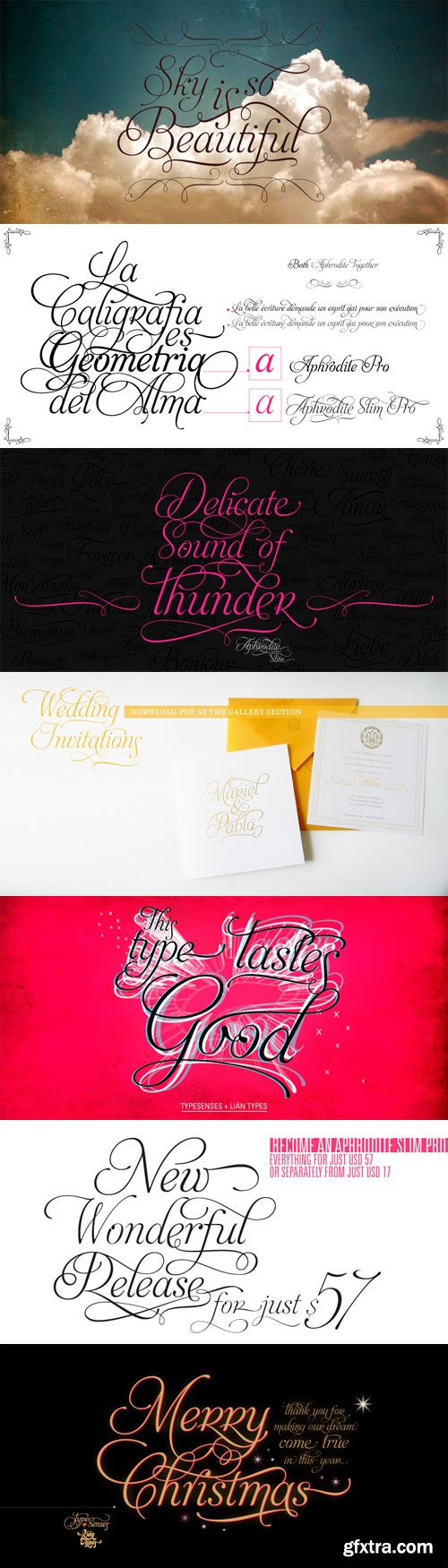
Aphrodite Slim Pro is not just a lighter version of its sister Aphrodite Pro. Aphrodite Slim Pro has duplicated the quantity of characters of its partner, and that means more than 500 new glyphs, reaching a total of more than 1000. More delicate and meticulous, Aphrodite Slim Pro is once more a new typography with deep calligraphic ideals: We immersed ourselves into the world of each calligraphy ductus and each calligraphy masters by studying from decoration to lettering books. This was the key for the logic of Aphrodite Slim’s behavior. The new concept of Aphrodite Slim Pro was to join diverse styles of calligraphy in one in order to achieve an autonomous expressiveness, in fact, this is what calligraphy aims to, and we agreed to bring those ideals to the world of typography: It is justifiable to be inspired in hundred-year-old calligraphies, but it is even better if the results you obtain have a plus. A personal plus. During the creation process we were wondering whether it was possible to mix certain strokes of such rigid styles as uncial, (Li·n’s favourite style), with strokes of the copperplate, (Sav’s favourite style), and also to take and mix cualities of cancelleresca cursiva, formata and moderna; finally giving our creation a roman-transition italic look.